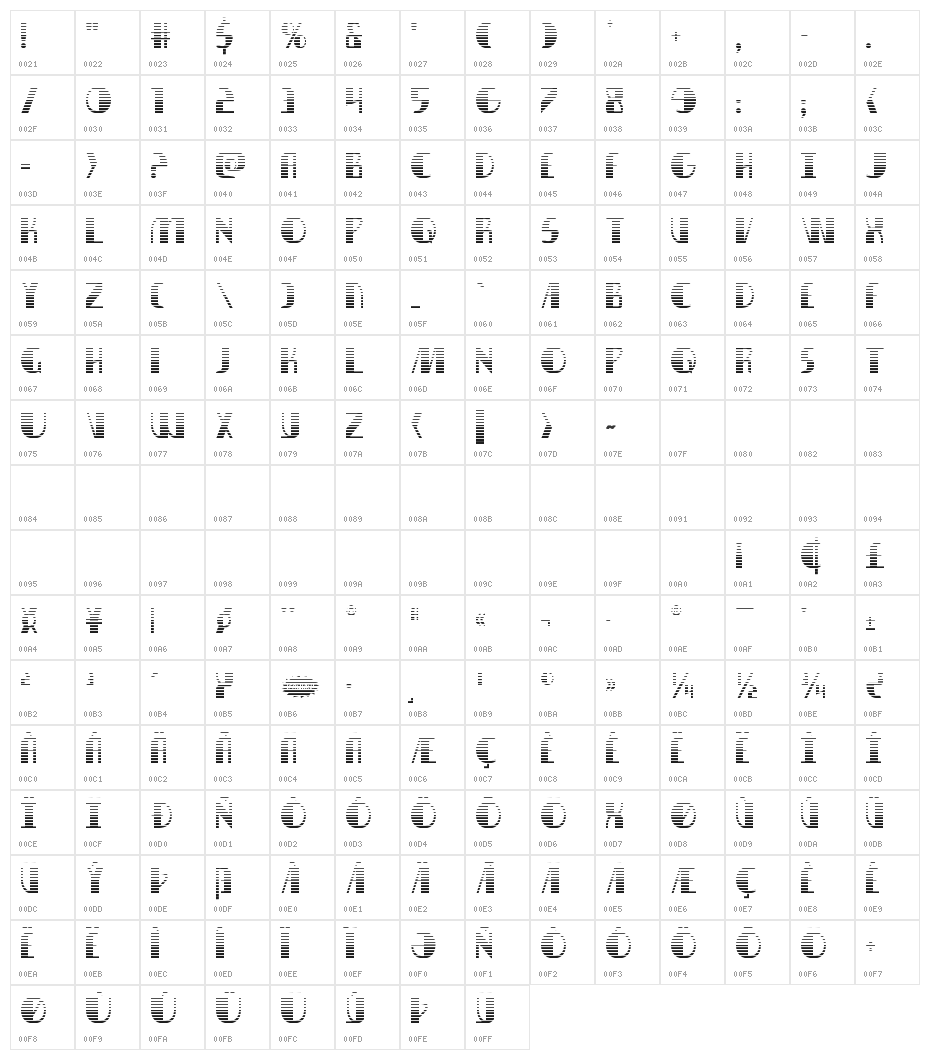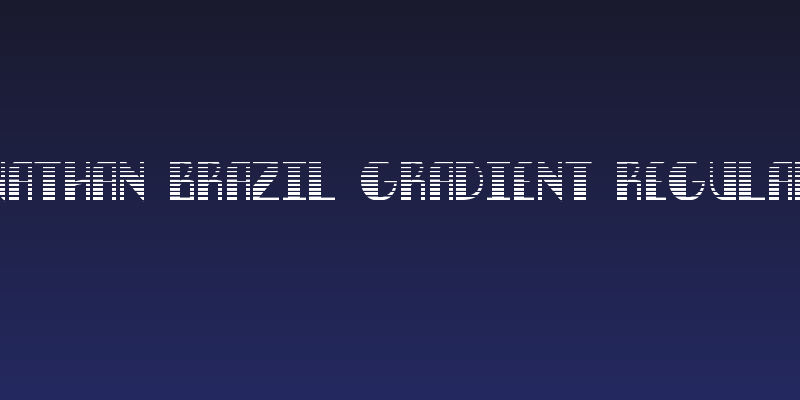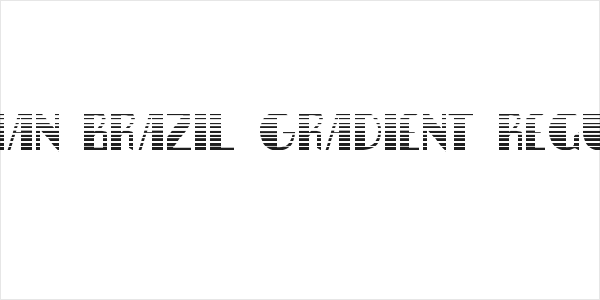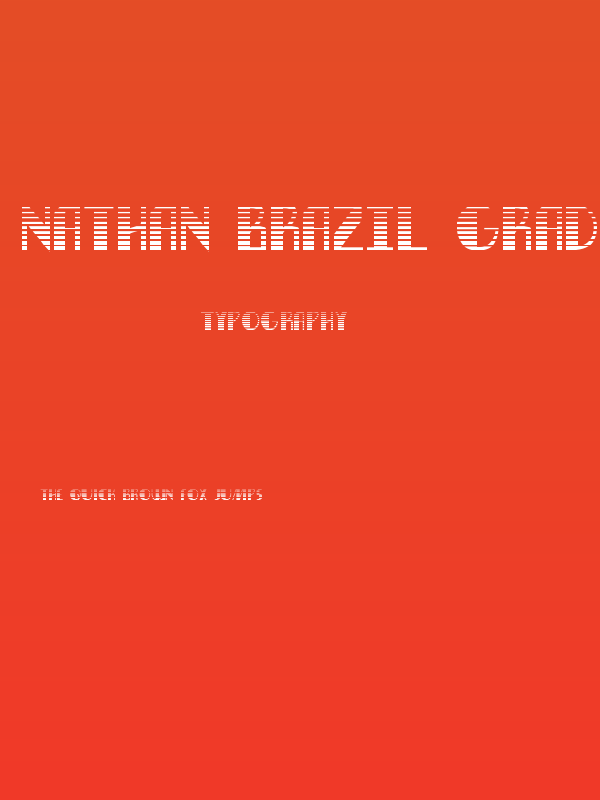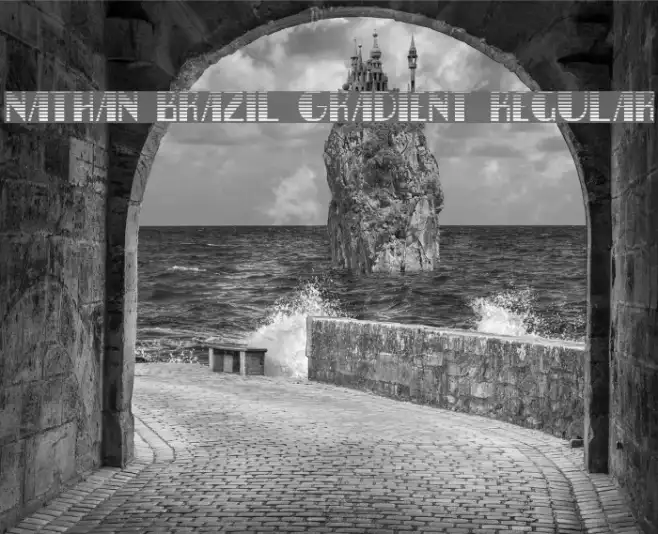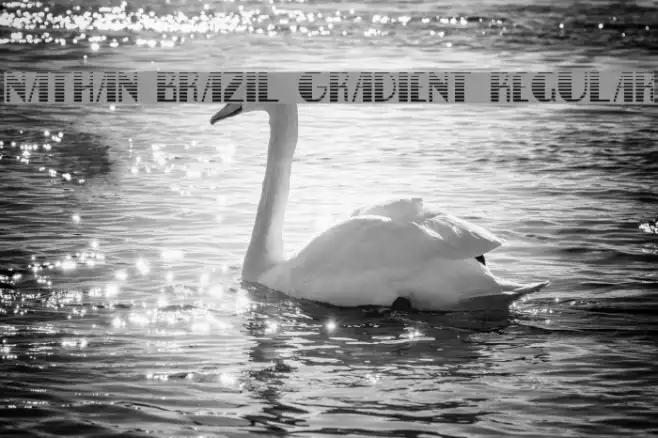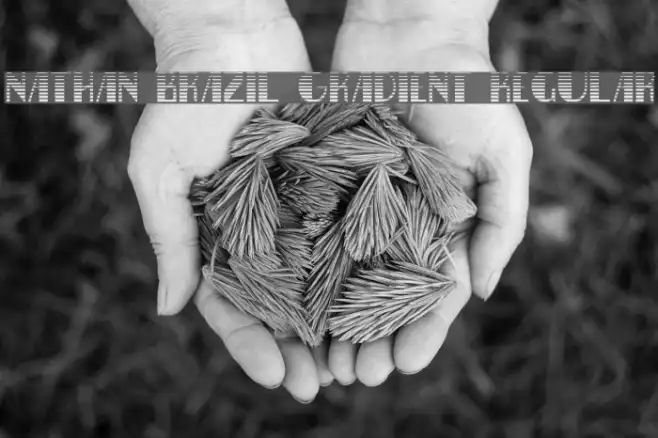
Nathan Brazil Gradient Regular Font
Nathan Brazil Gradient Regular Description
This font features a unique gradient effect created by horizontal lines that form each character, giving it a modern and futuristic appearance. The letters are bold and structured, with a distinct geometric style that stands out. The use of negative space within the characters adds a dynamic visual interest, making it suitable for eye-catching designs. The font maintains a consistent width across all characters, providing a uniform look. Its innovative design makes it ideal for projects that require a contemporary and edgy feel.
| Proposed Projects | Ideal for modern branding, tech-related designs, futuristic posters, and digital media. |